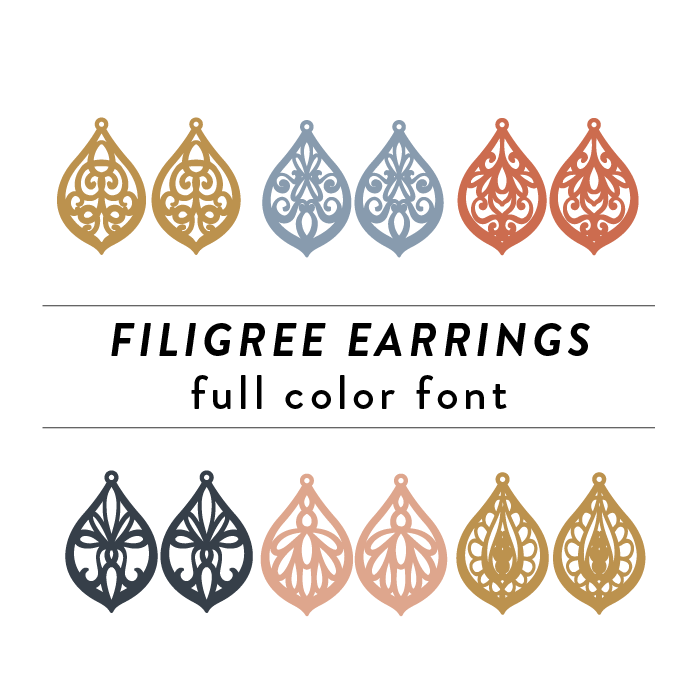
Filigree Earrings Full Color Font is a decorative font design inspired by intricate filigree earrings. It features curved line shapes and stylish details to create your own customized jewelry. This font is a OTF craft font that will appear in color only when used with the silhouette software.